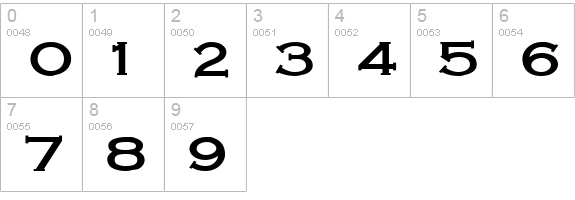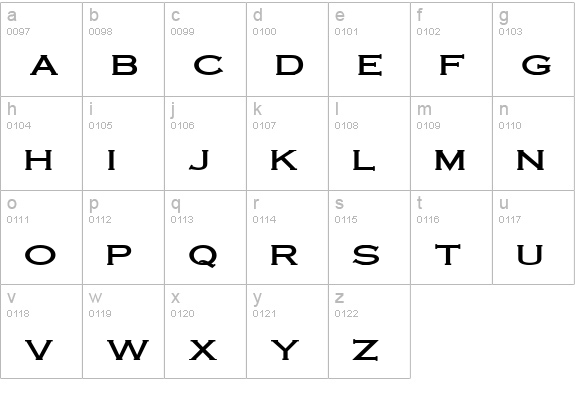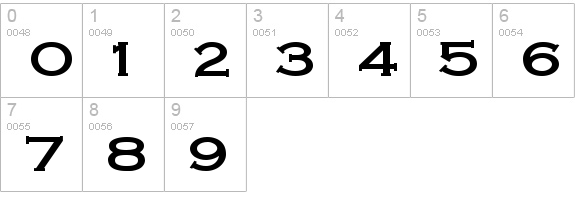
Cobalt Wide Bold Font Details
Cobalt Wide Bold is a strong, high-contrast, extended-width variant in the Cobalt typeface family \xE2\x80\x94 well suited to headlines, attention-grabbing titles, and strong calls-to-action.
Cobalt Wide Bold font is a versatile and modern typeface that exudes confidence and elegance. With its bold and wide design, this font is perfect for making a statement in any design project. Whether used for headlines, posters, or branding materials, Cobalt Wide Bold font commands attention and adds a touch of sophistication. What's even better is that Cobalt Wide Bold font is available for free download at FontsMarket.com. This means you can elevate your designs without any cost, making it a valuable addition to your font collection. Don't miss the opportunity to enhance your creative projects with the striking and impactful Cobalt Wide Bold font.